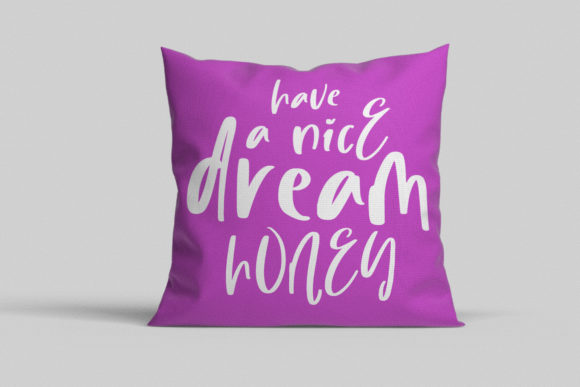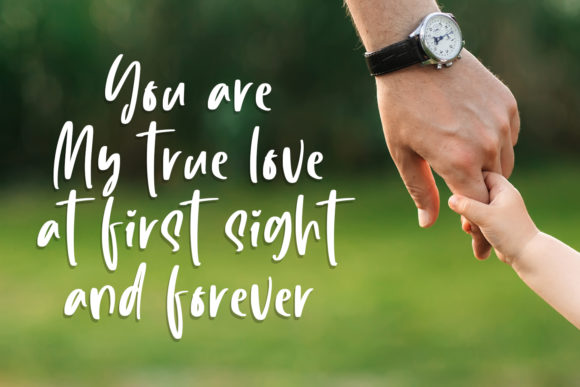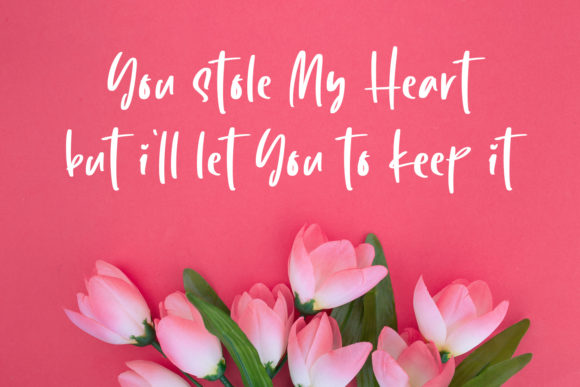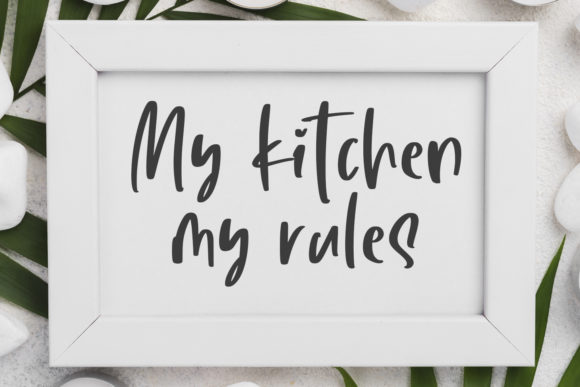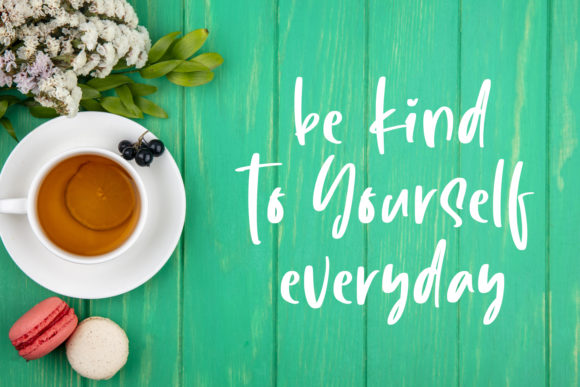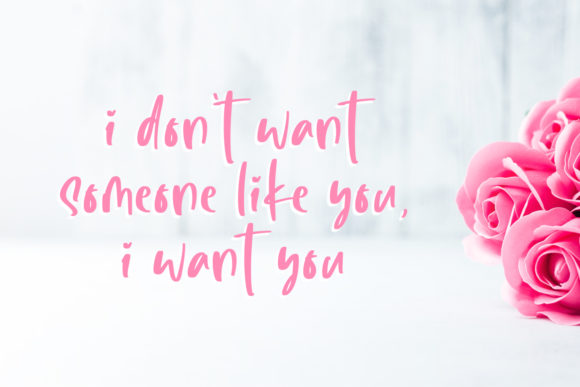
Introduction to Lovely Purple Font
Have you ever been working on a design project, and you just can’t seem to find the right touch to make it pop? You’ve tried every combination of colors and fonts, but nothing seems to be quite right. That’s when you stumble upon the perfect design resource – a font that’s so charming and unique, it instantly elevates your entire project. For me, that font was the Lovely Purple Font, and it completely transformed my design.
As designers, we’re always on the lookout for high-quality fonts that can add an extra layer of creativity to our projects. And the Lovely Purple Font is just that – a beautiful, handwritten font that’s perfect for adding a touch of whimsy and personality to your designs. With a transparent background, it’s easy to use and can be downloaded for free, making it an invaluable addition to any design arsenal.
Whether you’re working on a creative project, a marketing campaign, or simply a personal design, the Lovely Purple Font is sure to make your work stand out. Its sweet and quirky charm is infectious, and it’s guaranteed to put a smile on your face. So why not give it a try and see how it can elevate your designs to the next level?
Key Features of Lovely Purple Font
- High-quality design resource with a beautiful, elegant purple hue, perfect for creative projects.
- Features a clean, modern design with precise details, ideal for use in logos, branding materials, and digital graphics.
Honest Review: Lovely Purple Font
I recently had the chance to work with the Lovely Purple Font and I must say, it’s a lovely addition to any design project. I was pleasantly surprised by the high quality of the font, which is perfect for creative projects that need a touch of elegance.
- High quality design: The font is well-crafted and looks great in print and digital formats.
- Limited character set: The font only includes a limited character set, which may not be suitable for longer text blocks.
- No bold or italic options: While the font looks great in its standard form, it would be nice to have some additional style options.
Overall, I’m impressed with the Lovely Purple Font and would definitely recommend it for creative projects that need a touch of sophistication.
Tips for Getting the Most Out of Lovely Purple Font
Use Lovely Purple Font as a design resource to add a touch of elegance and sophistication to your creative project. Experiment with different font sizes, colors, and styles to create a unique look. You can also use it in conjunction with other design elements, such as images and shapes, to create a visually appealing design.
Common Use Cases for Lovely Purple Font
Use Lovely Purple Font for a variety of creative projects, including wedding invitations, business cards, and social media graphics. You can also use it to add a touch of personality to your blog or website. With its high quality and free download, you can’t go wrong with Lovely Purple Font as a design resource for your next project.